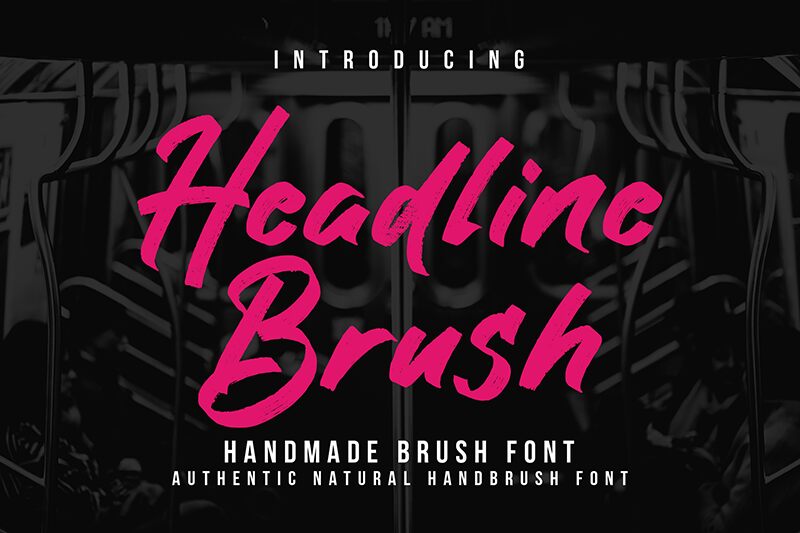
Headline Brush font by MJB Letters is a free font with a strong typographic presence. It combines the qualities of dynamic hand lettering with a contemporary and natural style. Looking creative and innovative, Headline Brush is designed to quickly catch the attention of the reader and leave a unique impression. If you’re looking for an artistic font to make a statement, try out this option in all its charm.
This font is suitable for groovy poster designs, magazine covers, events flyers, book covers, branding, and online advertisements. You can also use it for blog graphics, social media posts, video title introductions, and merchandising.